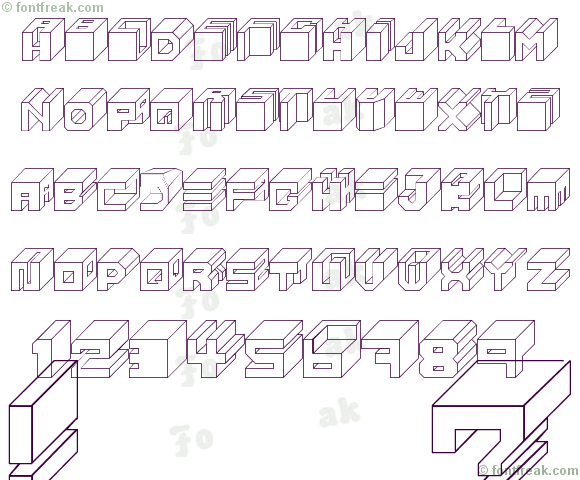
Cube
About Cube
The Cube font by 2theleft Typefaces is a striking display typeface that captivates with its geometric forms and modern aesthetic. This sans-serif font features bold, block-like letters that convey a sense of strength and stability. The clean lines and uniform stroke weight result in a harmonious visual rhythm, making it versatile for various design applications. Its minimalist approach is enhanced by a spacious layout that ensures readability, even at larger sizes. The absence of excessive ornamentation allows the font to stand out while maintaining a contemporary feel.
Ideal for a range of creative projects, the Cube font excels in applications such as branding materials, product packaging, and promotional posters. Its distinctive geometric style makes it particularly suitable for tech startups, modern art galleries, and lifestyle brands looking to make a bold statement. Additionally, the font can be effectively utilized in event invitations and flyers, where a strong visual impact is desired. Graphic designers, small business owners, and content creators will find this font an invaluable tool in their design arsenal.
What truly sets the Cube font apart is its unique ability to balance modernity with simplicity. The font’s solid structure and clean lines create a visual weight that draws attention, while its unobtrusive design allows it to complement a variety of images and colors. As a freeware option, the Cube font offers an accessible choice for those seeking to elevate their projects without incurring additional costs. For anyone looking to enhance their designs, the Cube font free download is an opportunity not to be missed, promising to add a distinctive flair to any creative endeavor.